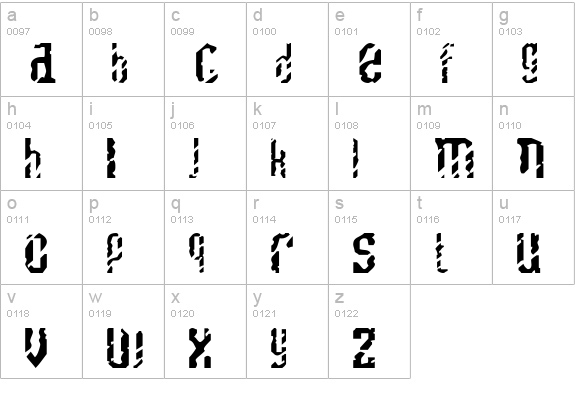
Scratchy Font Details
Introducing the captivating and playful Scratchy font! This unique and eye-catching typeface is sure to make any design project stand out from the crowd. With its irregular and jagged edges, Scratchy font adds a touch of spontaneity and energy to your text. Perfect for a variety of design applications, Scratchy font is ideal for posters, flyers, logos, headlines, and more. Its bold and expressive characters create a strong visual impact, while still maintaining legibility. What's even better is that Scratchy font is absolutely free! That's right, you can download this fantastic font for no cost at all on FontsMarket.com. Whether you're a professional designer or a hobbyist, this font is freely available to all, allowing you to add a touch of creativity to your projects without breaking the bank. So why wait? Get your hands on Scratchy font today and let your imagination run wild. With its free availability and limitless design possibilities, this font is a must-have for anyone looking to add a touch of whimsy and excitement to their designs. Don't miss out on this opportunity to enhance your creativity and download Scratchy font now at FontsMarket.com.